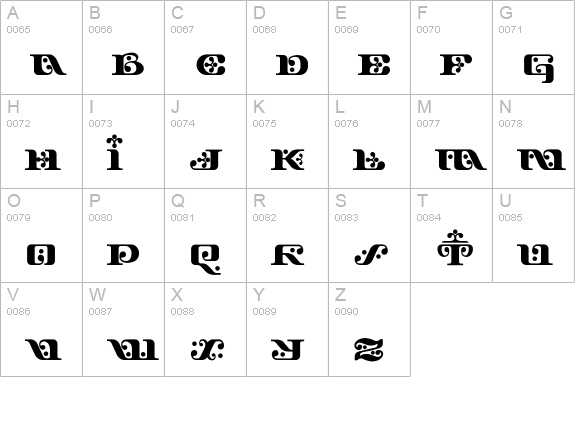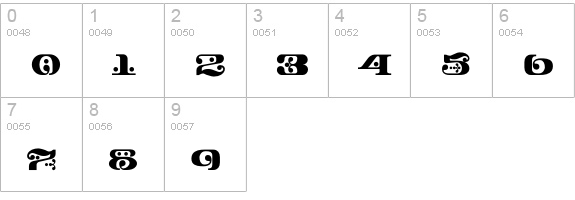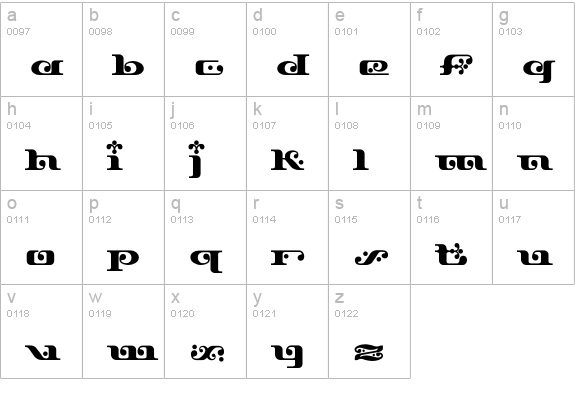
Django-Bold Font Details
Django-Bold is a strong, high-contrast variant in the Django typeface family \xE2\x80\x94 well suited to headlines, attention-grabbing titles, and strong calls-to-action.
Introducing Django-Bold, a striking and powerful font that exudes confidence and boldness. With its strong, thick strokes and sleek design, Django-Bold commands attention and makes a statement in any design project. Whether you're looking to create eye-catching headlines, powerful logos, or impactful branding materials, Django-Bold is the perfect choice. And the best part? Django-Bold is completely free to download at FontsMarket.com! This means you can access this impressive font without any cost, making it a valuable addition to your font collection. Don't miss out on the opportunity to enhance your designs with the impactful style of Django-Bold. Download it today and make your projects stand out from the crowd.